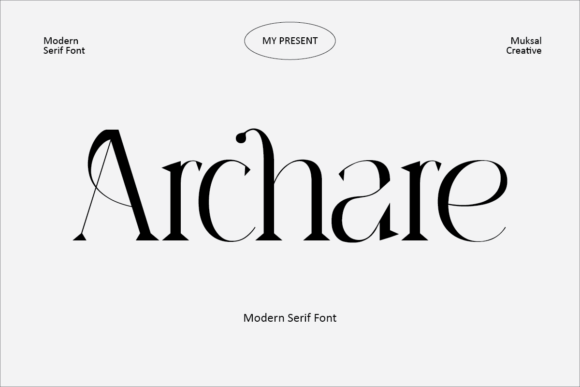
Introducing Archare Font: Elevate Your Designs with Modern Elegance
In the world of typography, a font can make or break a design. For designers and crafters looking for a typeface that exudes modern elegance and versatility, Archare Font is an exceptional choice. This modern serif font typeface is not just a simple collection of letters; it’s a comprehensive design tool that offers beautiful alternates, special glyphs, ornaments, and multilingual support. Whether you’re working on editorial projects, logo design, clothing branding, product packaging, or magazine headers, Archare Font is engineered to enhance your creative output.
One of the standout features of Archare Font is its incredible versatility. This font works beautifully in both large and small sizes, making it perfect for a wide range of applications. From the grandeur of a magazine header to the subtlety of a text overlay on a background image, Archare maintains its elegance and readability. This adaptability is crucial for designers who need a reliable font that can perform well across different mediums and use cases.
Modern Serif Elegance
Archare Font brings a modern twist to the classic serif typeface. Its clean lines, balanced proportions, and meticulous attention to detail give it a contemporary feel that’s hard to ignore. The serif elements add a touch of sophistication and tradition, making it suitable for projects that require a bit of gravitas without sacrificing modern appeal.
Beautiful Alternates and Glyphs
What sets Archare apart from more basic fonts is its collection of beautiful alternate characters and glyphs. These additional design elements allow for a high degree of customization and creativity. Designers can experiment with different looks and feels, tailoring the font to fit the specific needs of their project. Whether you’re looking to add some flair to your text or create a unique brand identity, Archare’s alternates and glyphs provide the tools you need.
Ornaments and Multilingual Support
To further enhance its utility, Archare Font comes with a range of ornaments and multilingual support. The ornaments can be used to add decorative touches to your designs, creating a more visually appealing and engaging layout. Meanwhile, the multilingual support ensures that your typography can reach a global audience, making Archare an excellent choice for international brands or projects with a diverse readership.
Practical Applications
So, where can you use Archare Font? The possibilities are vast:
- Editorial Projects: Elevate your articles, stories, and publications with a sophisticated and modern typeface.
- Logo Design: Create memorable and stylish logos that stand out.
- Clothing Branding: Add a touch of elegance to your fashion brand’s typography.
- Product Packaging: Stand out on store shelves with beautifully typeset packaging.
- Magazine Headers: Capture your readers’ attention with stunning headers and titles.
- Text Overlays: Add a stylish touch to your background images with Archare’s elegant text.
| Font Name | Archare Font |
| Author | Muksal Creative |
Archare Font is more than just a typeface; it’s a design solution that combines modern elegance with versatility and practicality. Its range of features, including beautiful alternates, special glyphs, ornaments, and multilingual support, make it an indispensable tool for designers and crafters. Whether you’re looking to elevate your editorial projects, create striking logos, or simply add a touch of sophistication to your designs, Archare Font is an excellent choice. Explore the possibilities of Archare Font today and discover how it can transform your creative projects.